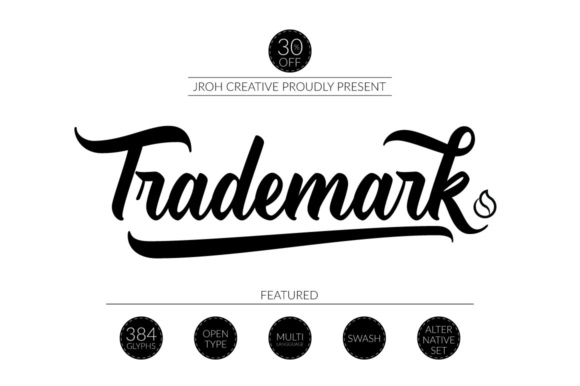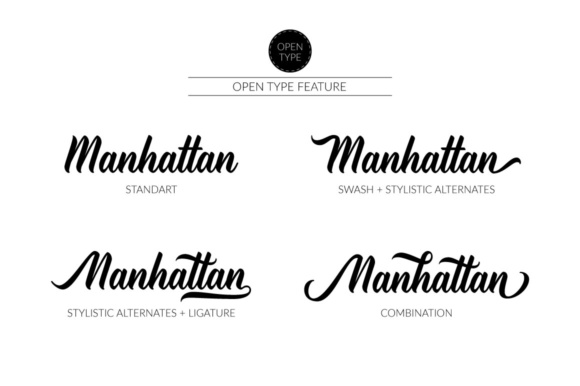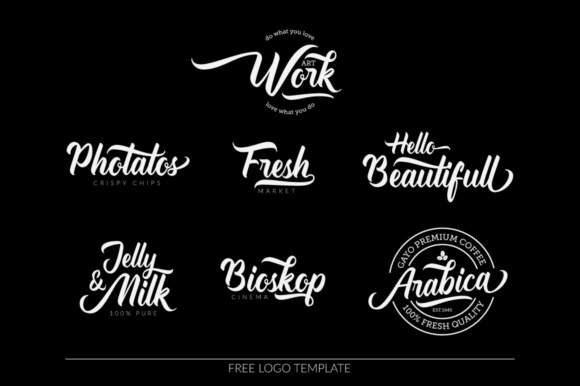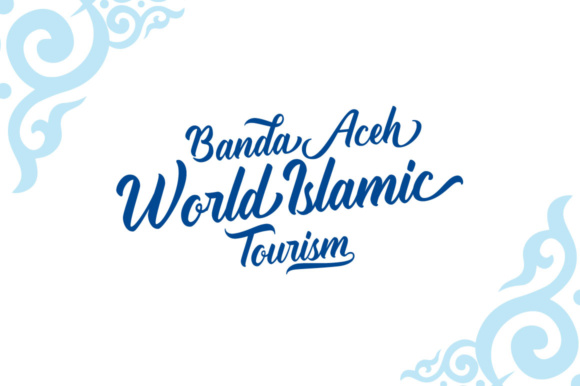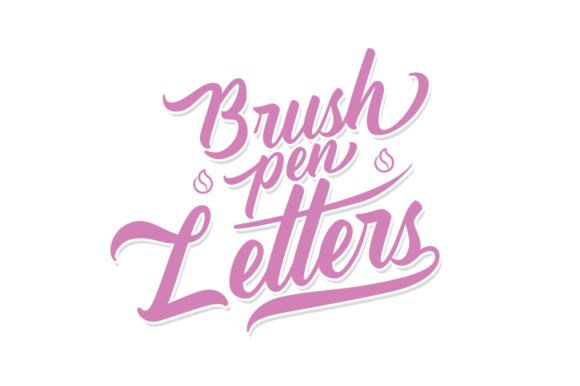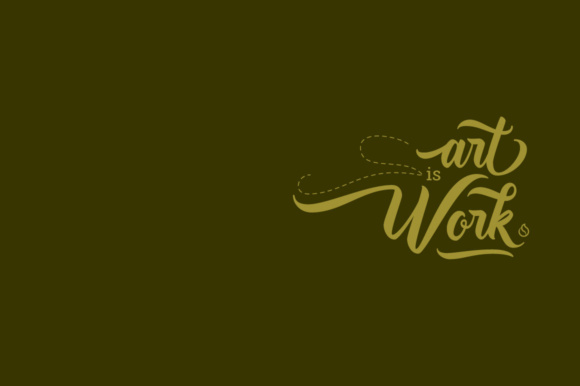
Trademark Font
About Trademark Font
Trademark is a gorgeous display font, crafted to give your headlines and logotype projects a stylish touch. This font reads as strong, confident, and dynamic and can add tons of nostalgic character to your designs.